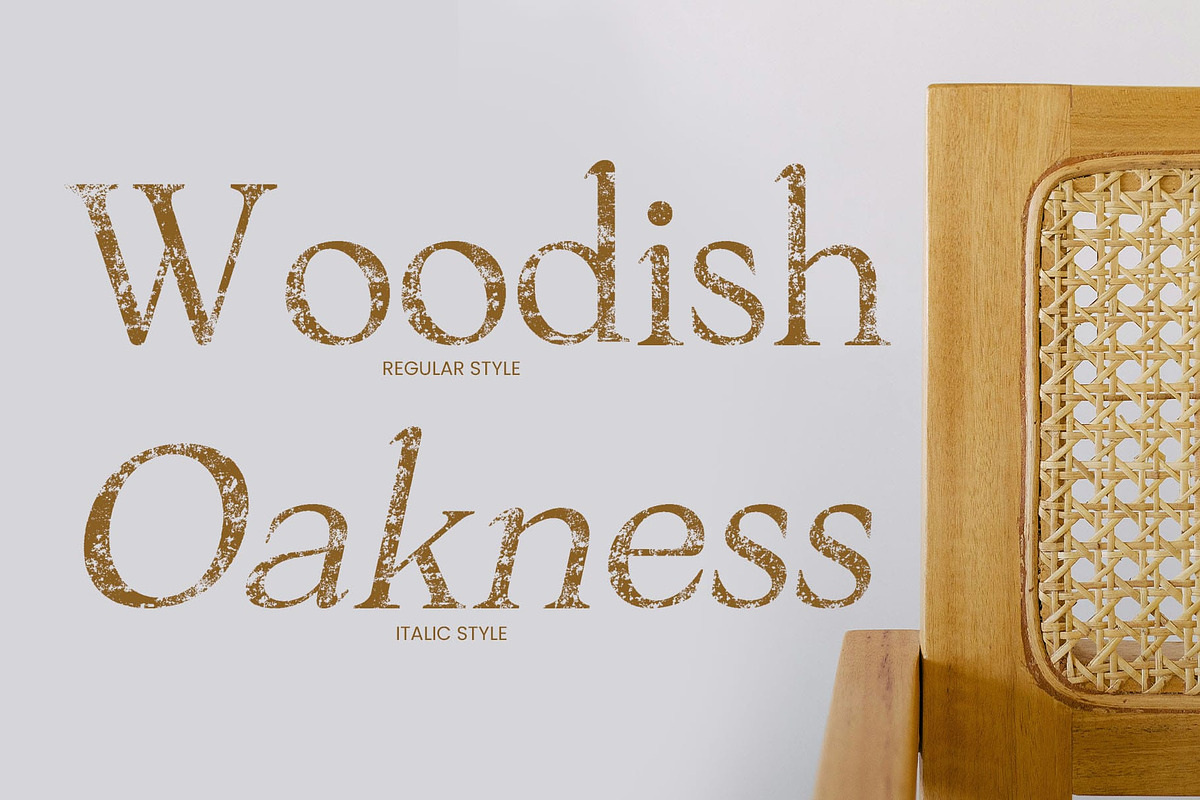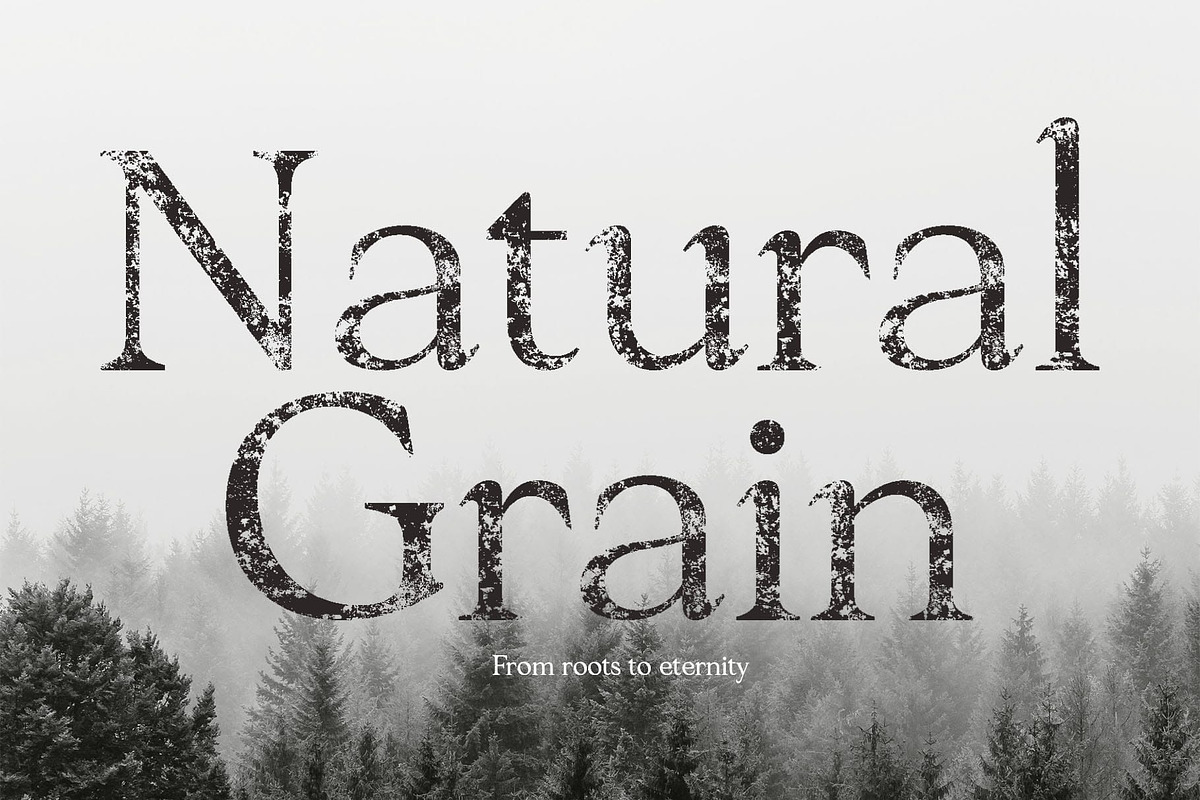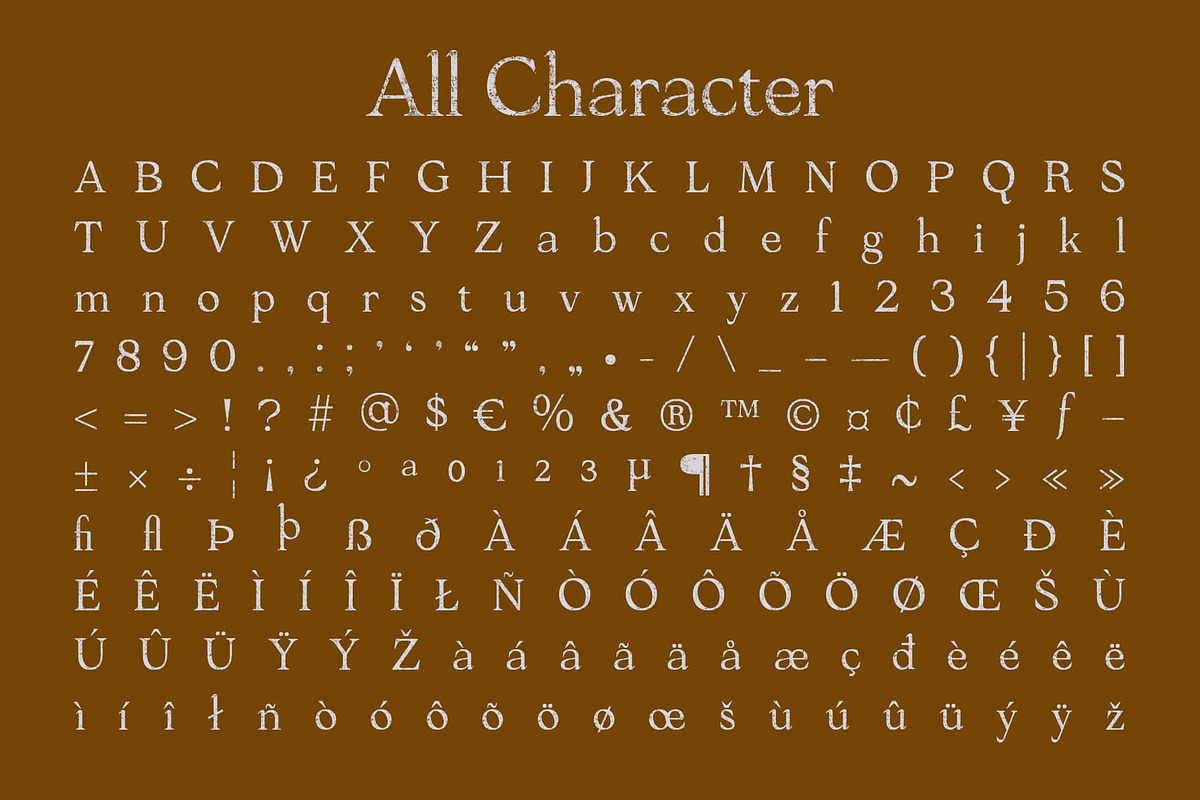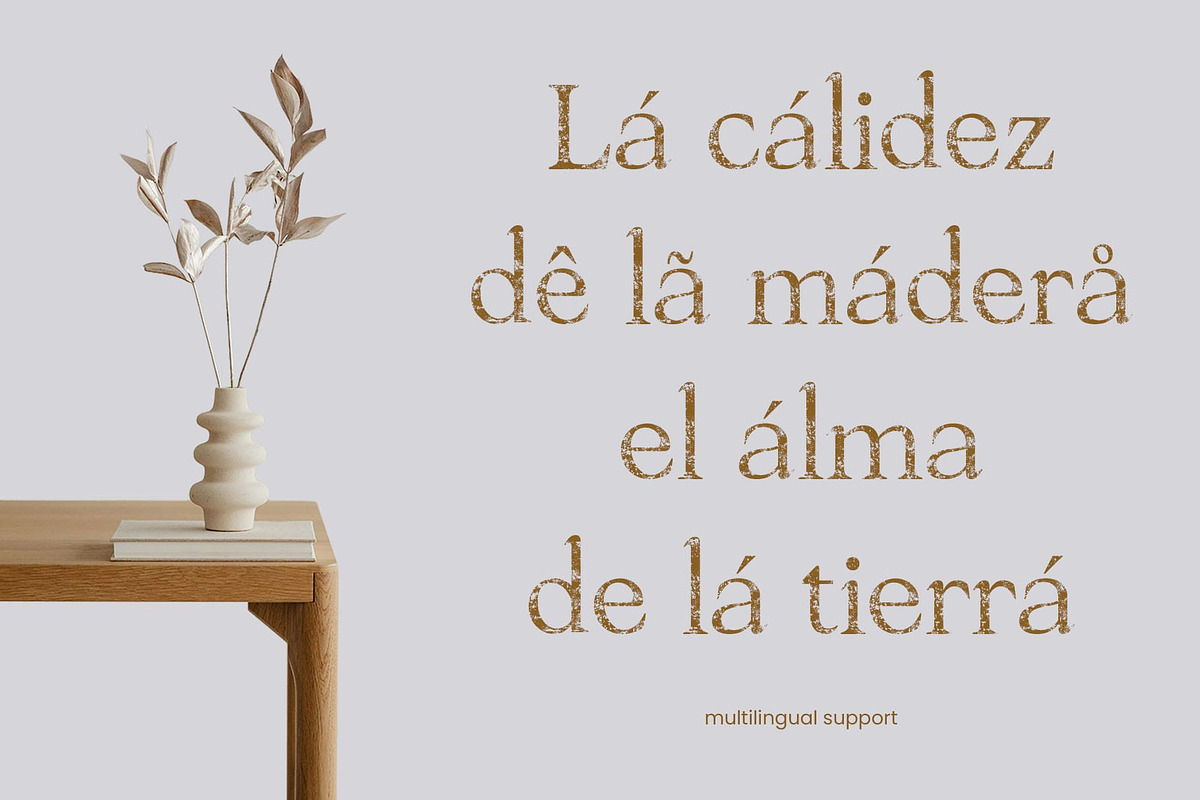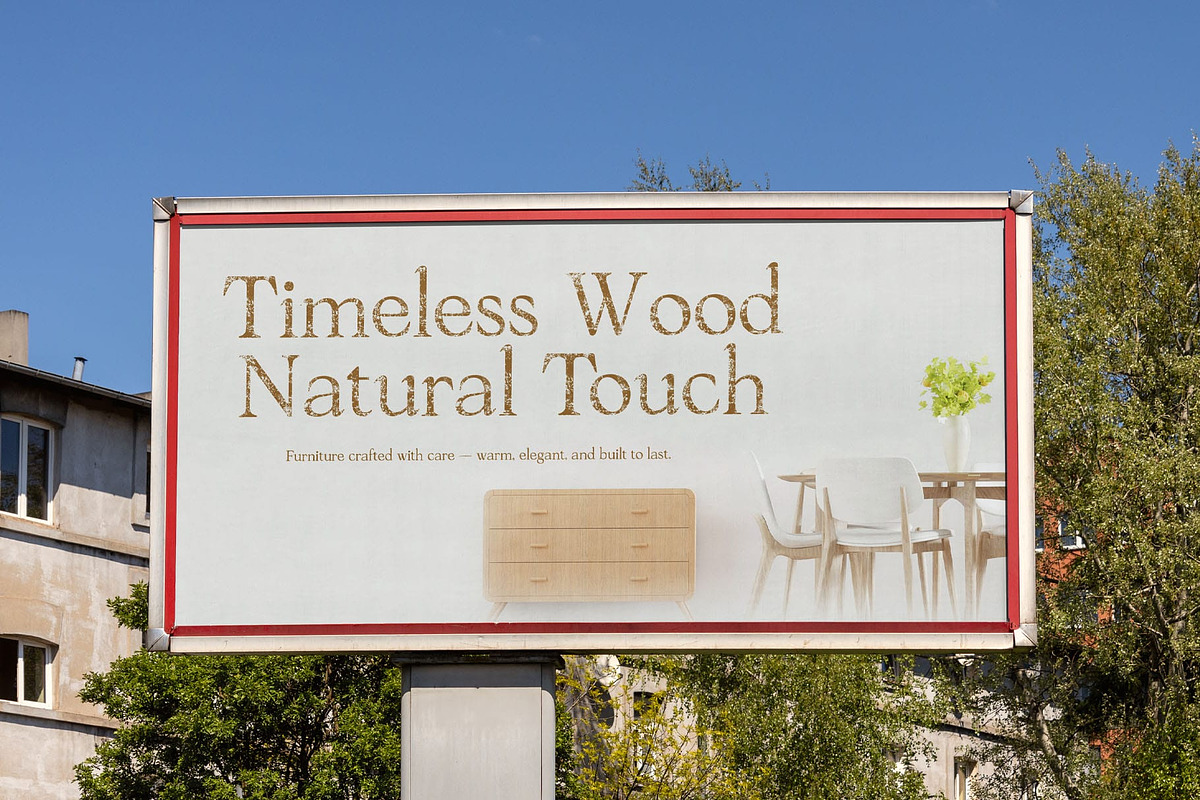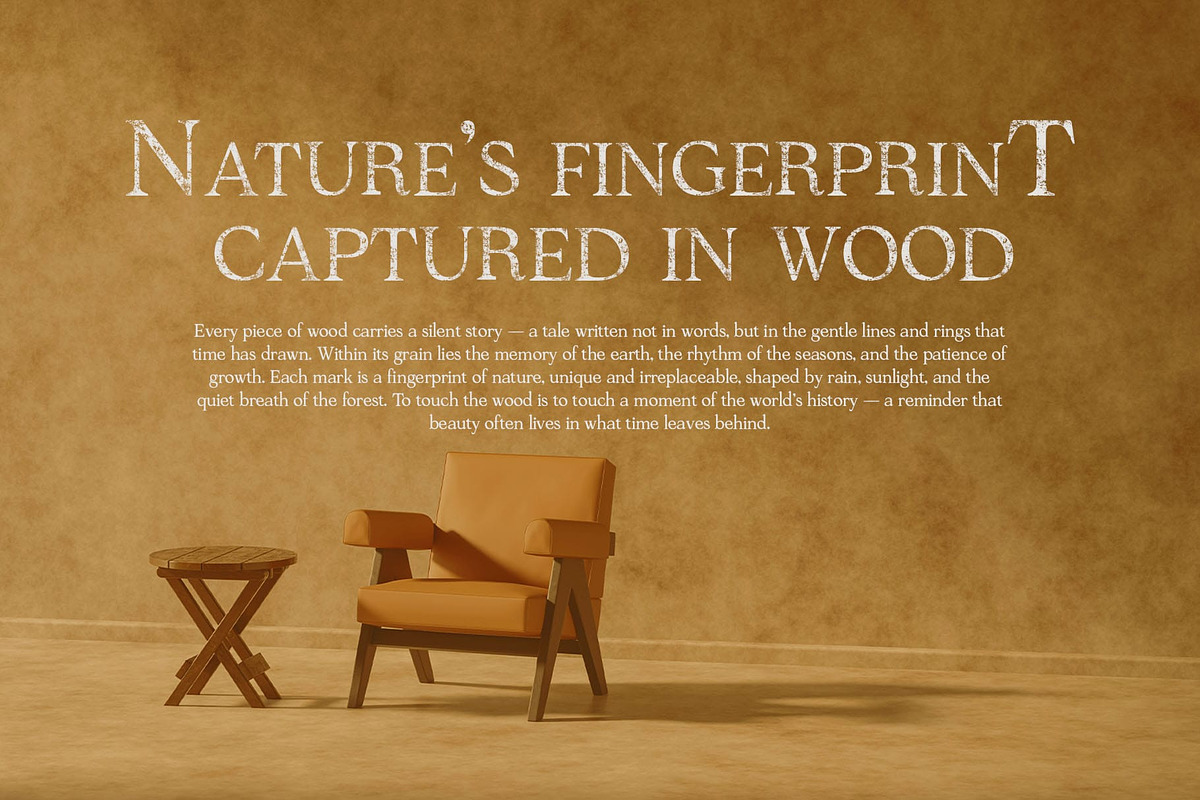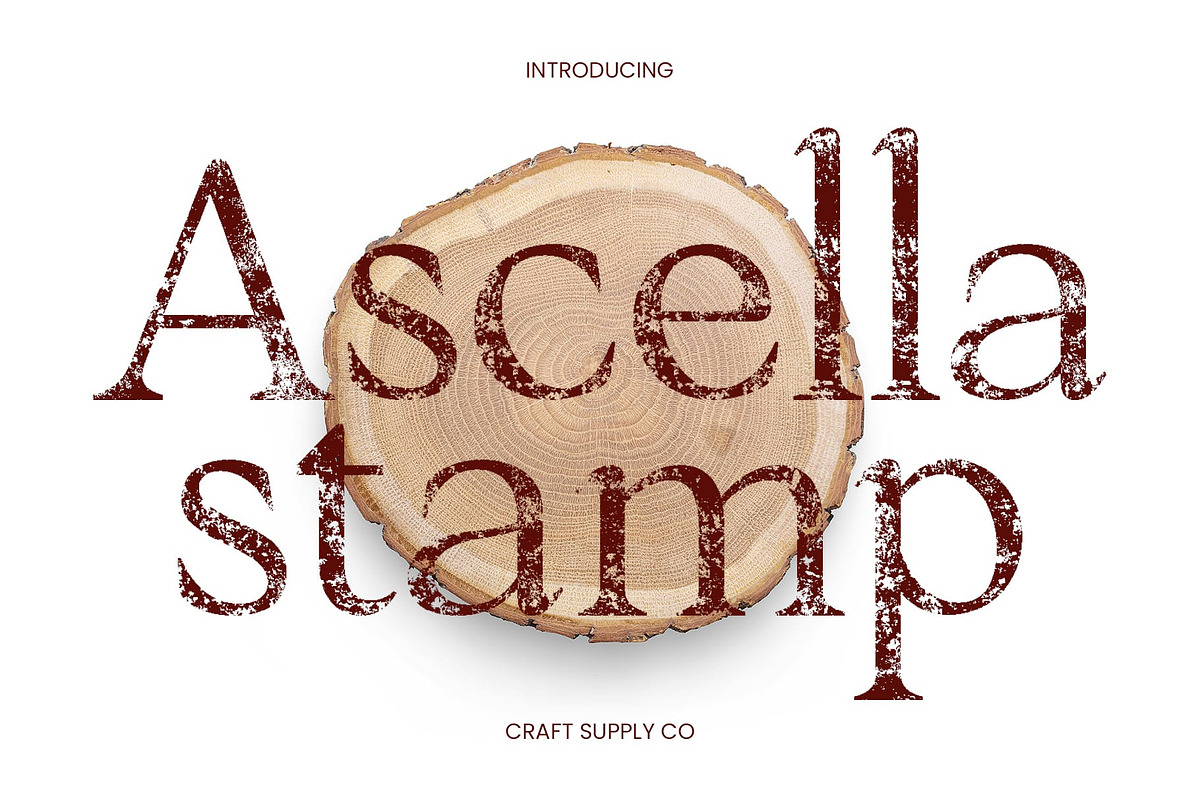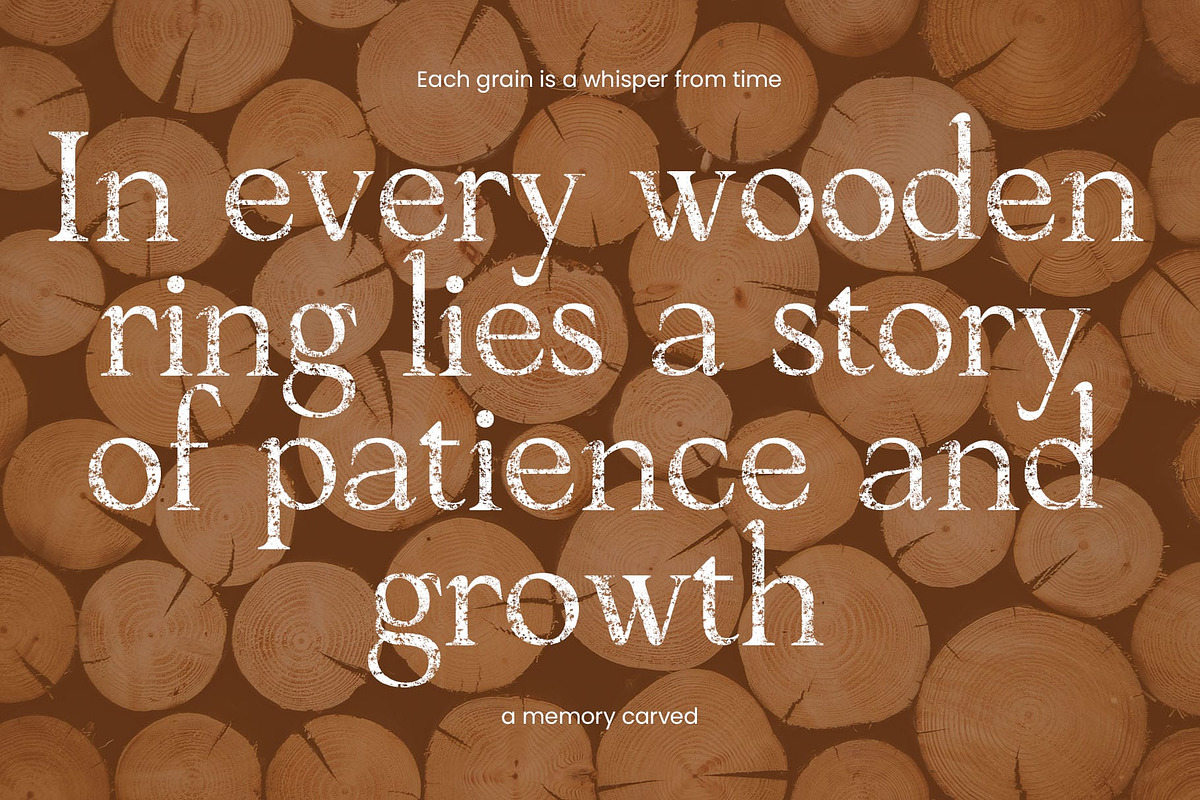
Ascella Stamp
Ascella Stamp – Elegant Serif Font with Stamp Effect: Modern Grace with Vintage Texture
Slim Structure with Refined Elegance This is a modern serif font characterized by its slender, clean lines and elongated serifs. Each letter embodies a sense of balance and sophistication, creating a refined, contemporary impression that enhances any design with quiet confidence and grace.
Vintage Depth through Stamp Texture The stamp effect introduces a subtle vintage texture, infusing the modern design with warmth and depth. This handcrafted touch adds personality and charm, transforming it font from a polished serif into a beautifully expressive and timeless typeface.
Versatile for Classic and Modern Projects Perfect for luxury branding, retro and vintage designs, editorials, or posters, this font offers remarkable flexibility. Its sleek form and textured details make it suitable for both sophisticated modern layouts and nostalgic design themes, ensuring visual appeal across styles.
Elegant Fusion of Modernity and Tradition This font captures the perfect harmony between modern elegance and artisanal authenticity. Whether you’re designing for a high-end brand, editorial headline, or artistic poster, this font delivers refinement, texture, and timeless beauty in every detail.